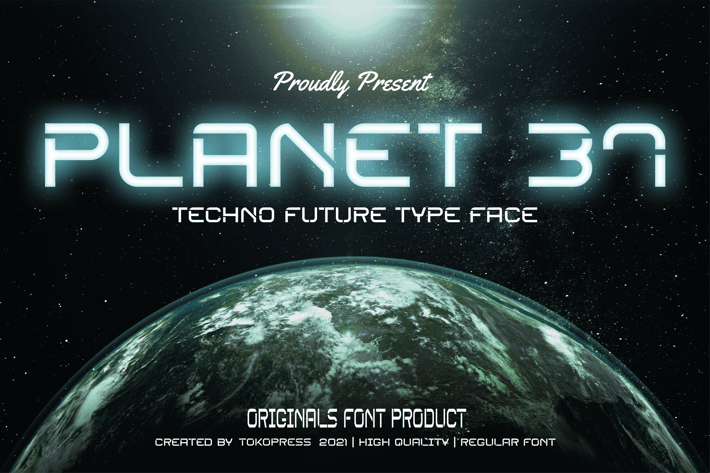
Planet 37 - Futuristic techno font
Planet 37 - Future Techno Font
Introducing Planet 37, a futuristic techno font with sharp terminals, extended characters, and digital flow. Built with geometric logic and precise angles, this bold display font captures a modern sci-fi tone perfect for screens, posters, and immersive interfaces. Its structure balances clarity with commanding visual presence, making it an essential pick for any tech-focused design system.
With a cool and dynamic energy, Planet 37 fits seamlessly into contexts like cyberpunk UI, gaming overlays, and startup branding. Its futuristic tech-core and mono-width look offer both readability and style.
Whether you’re crafting an app dashboard, launching a space-themed album cover, or promoting a gaming livestream, Planet 37 empowers your message to feel bold, modern, and ahead of the curve. Its commanding shapes deliver attention-grabbing headlines with a high-tech edge—ideal for anyone looking to stand out in digital-first design.
This font bridges form and function for creatives designing in futuristic, digital, or sci-fi spaces.
Built for Future-Driven Creators
- Futuristic techno style with clean geometry
- Extended forms for high legibility and unique rhythm
- All-caps display impact for posters, games, and media
- Balanced spacing and sharp angles for digital clarity
- UI/UX and app design
- E-sports branding & overlays
- Sci-fi book covers
- Futuristic music event posters
- Tech startup branding